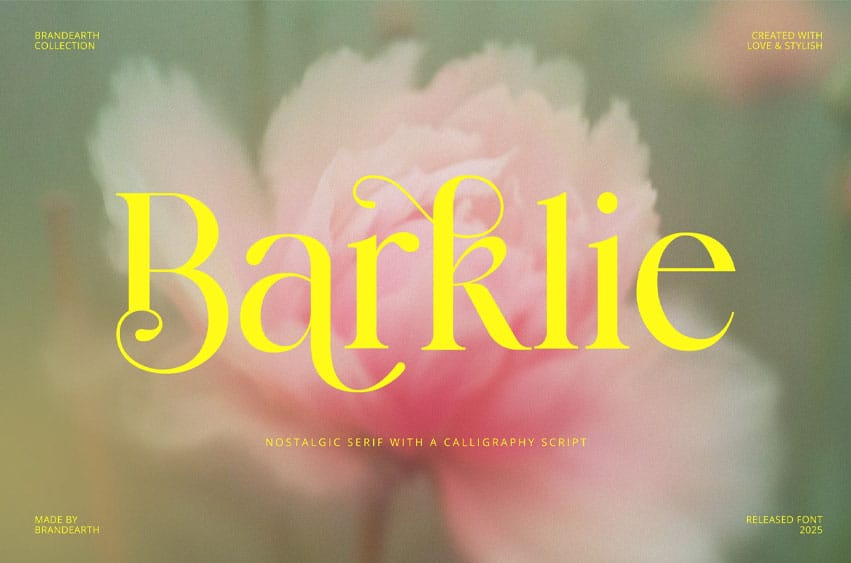
Barklie Font is a sophisticated serif typeface that blends refined contrast with flowing curves and decorative swashes. Its high-contrast strokes and elegant terminals evoke a sense of classic beauty, while the alternates and ligatures offer expressive flair for artistic compositions. Designed for both editorial and branding use, Barklie includes uppercase, lowercase, numerals, punctuation, and multilingual support. Optimized for display sizes, it brings poetic visual energy to any design while maintaining readability in high-resolution outputs.
- Ligatures & Alternate